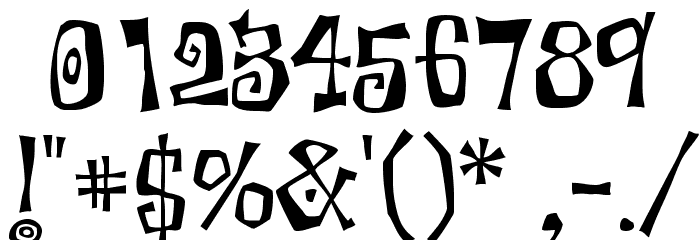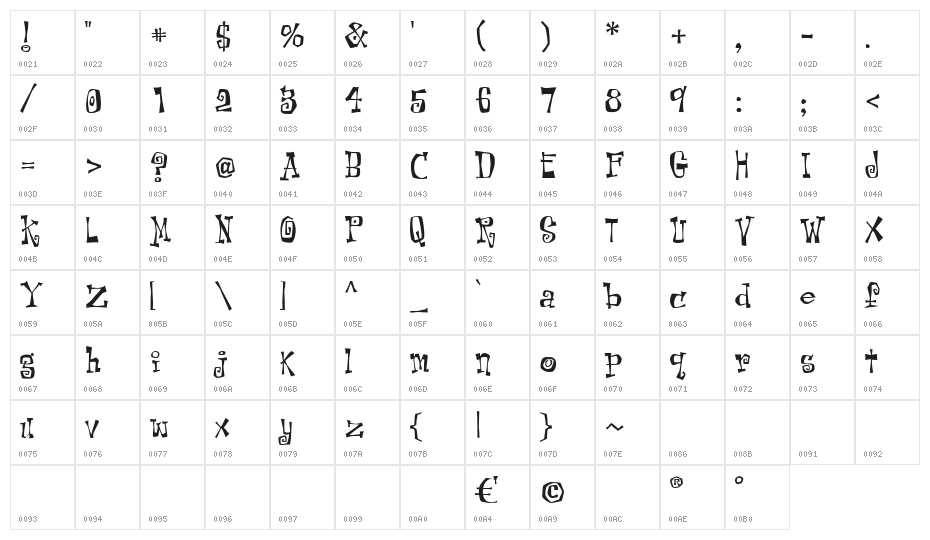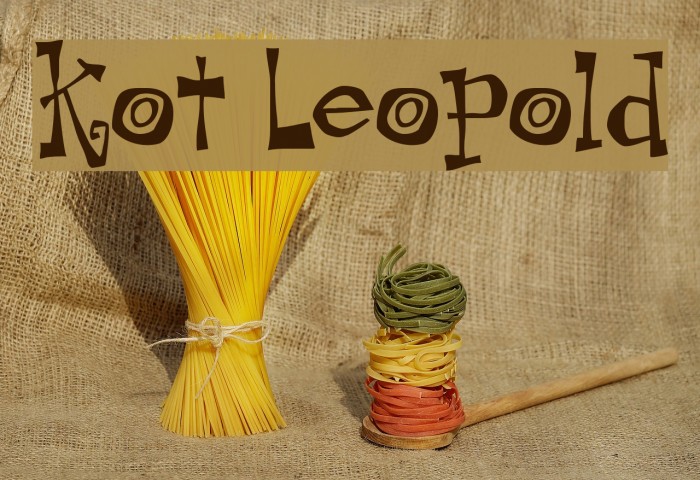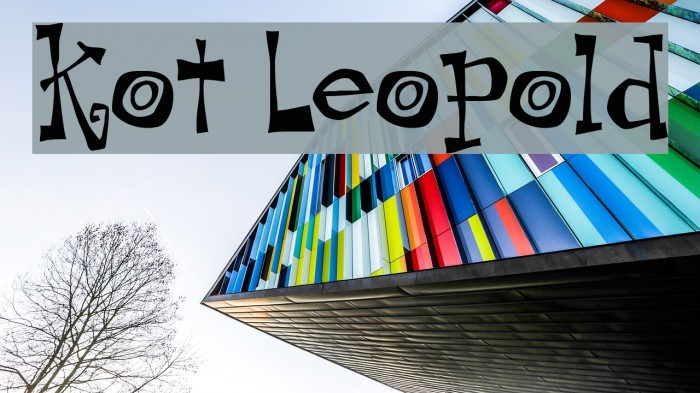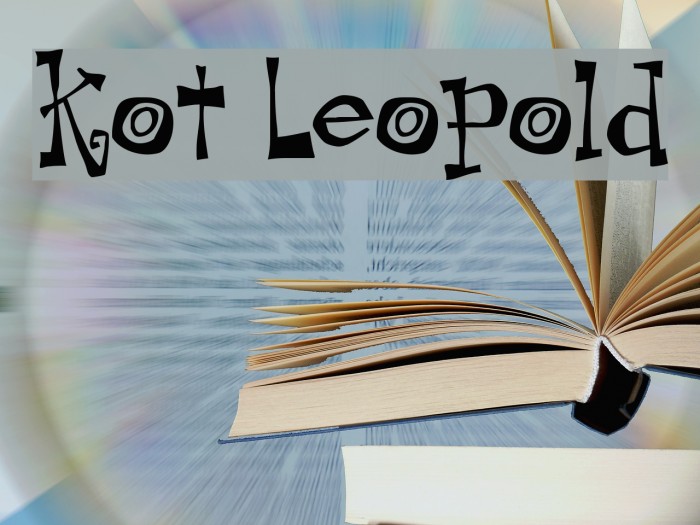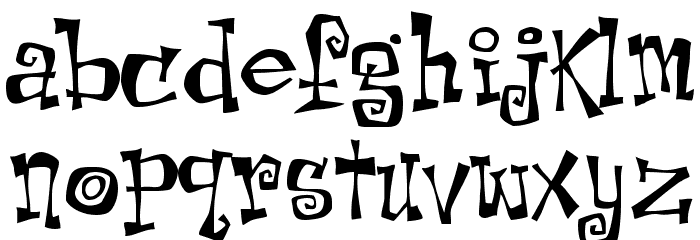
Kot Leopold Font
Kot Leopold Description
This font features a playful and whimsical design, characterized by its irregular and quirky letterforms. Each character exhibits a unique, hand-drawn quality, with varying stroke thicknesses and unexpected angles. The uppercase and lowercase letters maintain a consistent style, with exaggerated curves and loops that add to its charm. Numbers and special characters follow the same playful aesthetic, making the font suitable for creative and informal applications. The overall appearance is bold and eye-catching, perfect for projects that require a fun and distinctive look.
Overall StylePlayful, Whimsical
Proposed ProjectsIdeal for children's books, comic strips, playful branding, and creative posters.